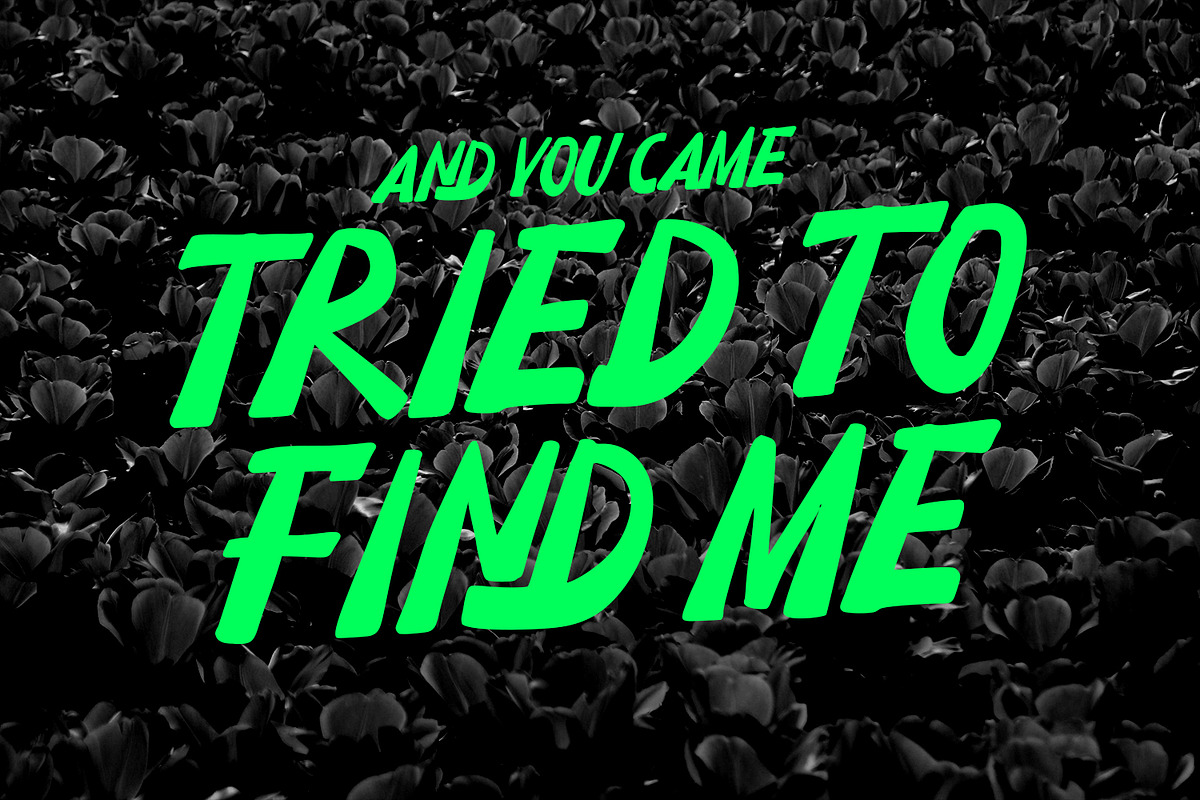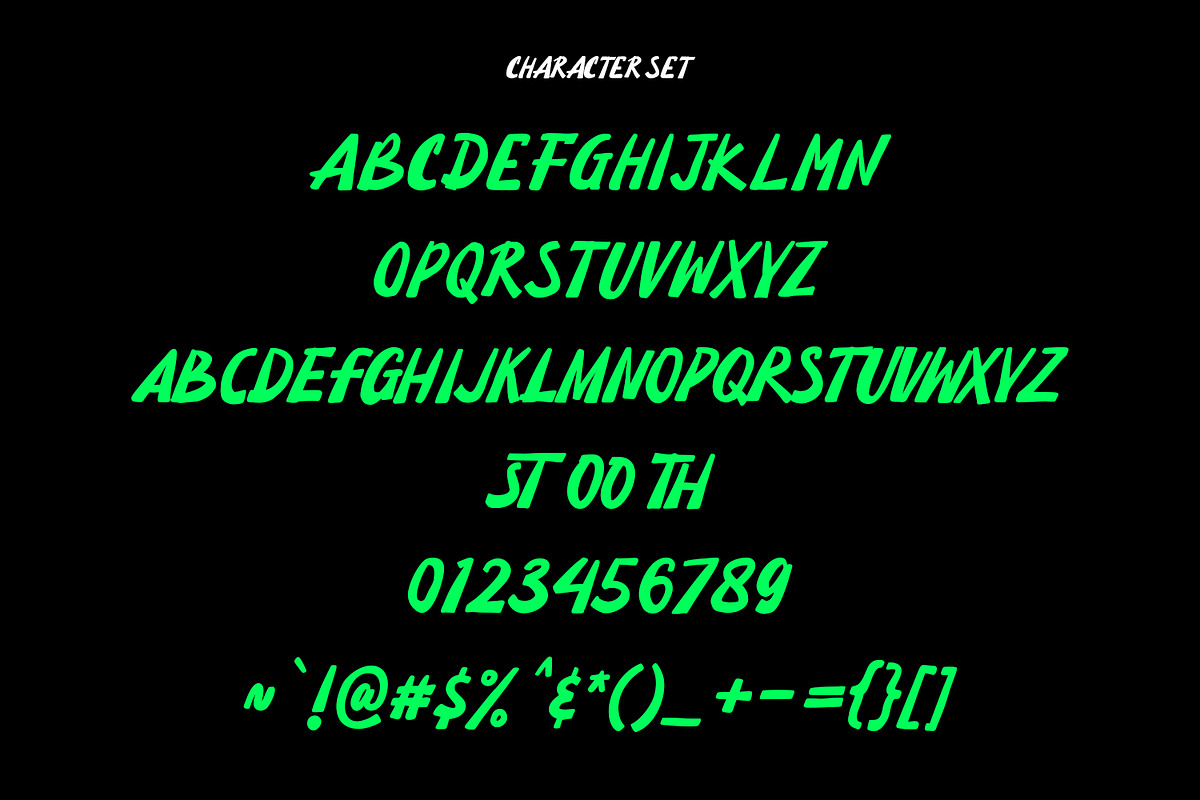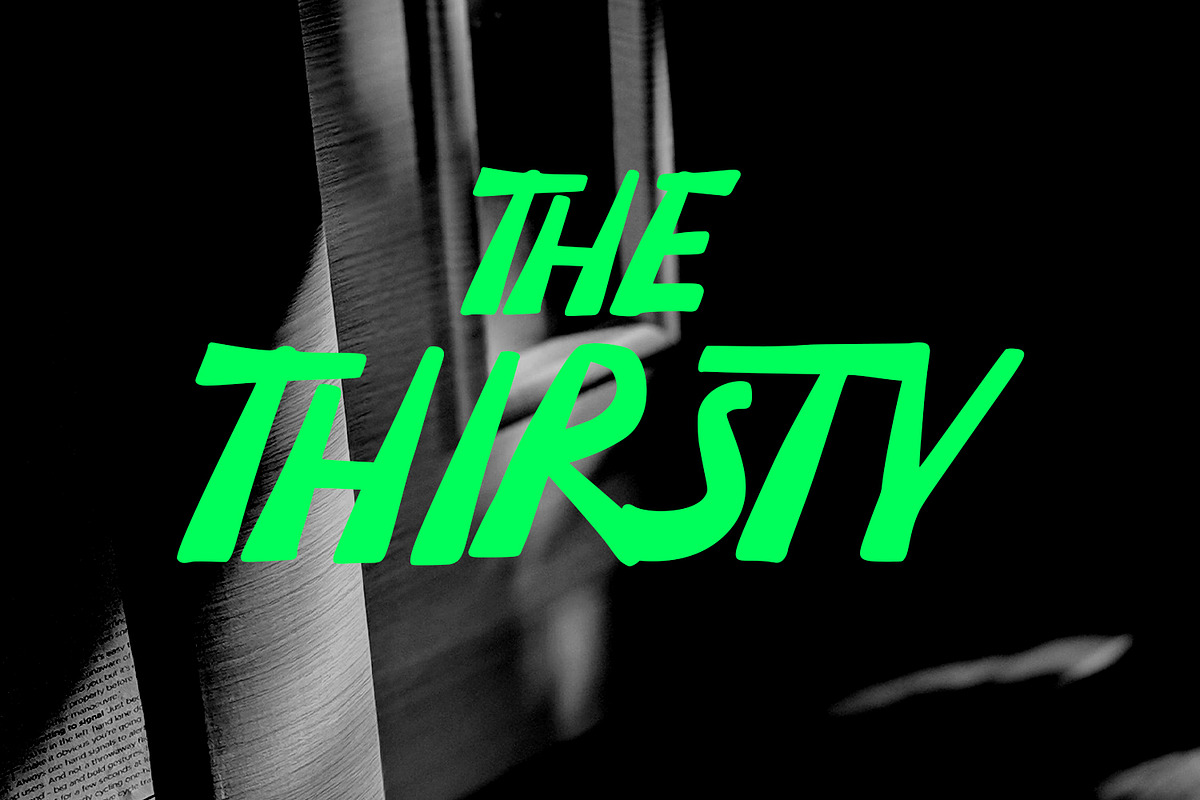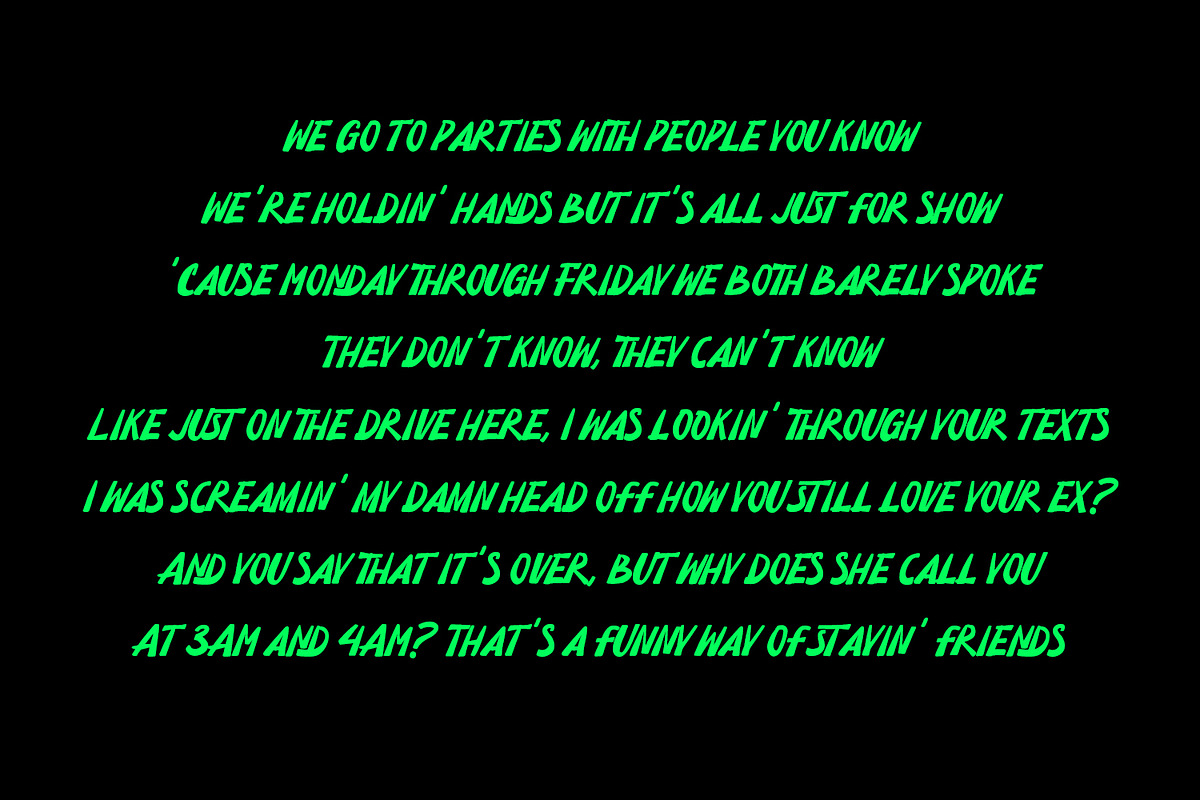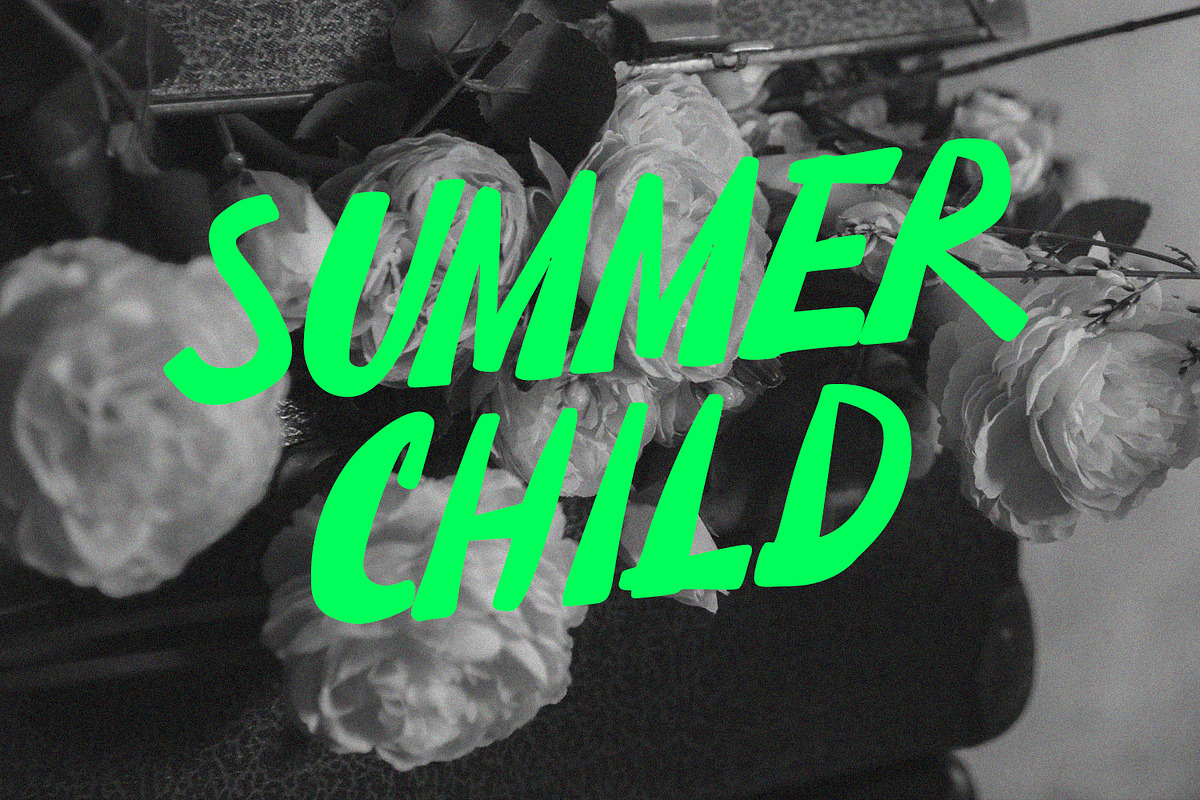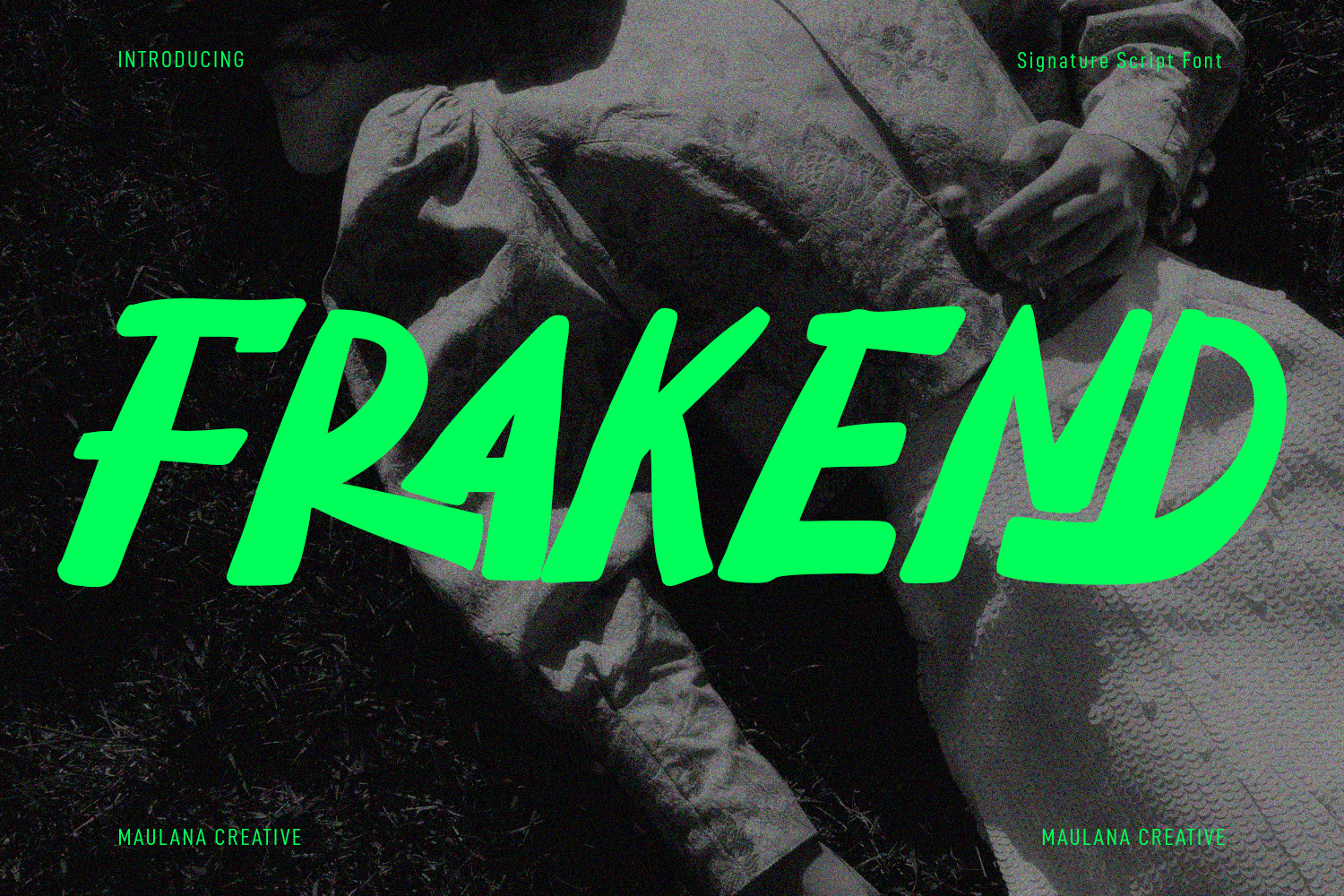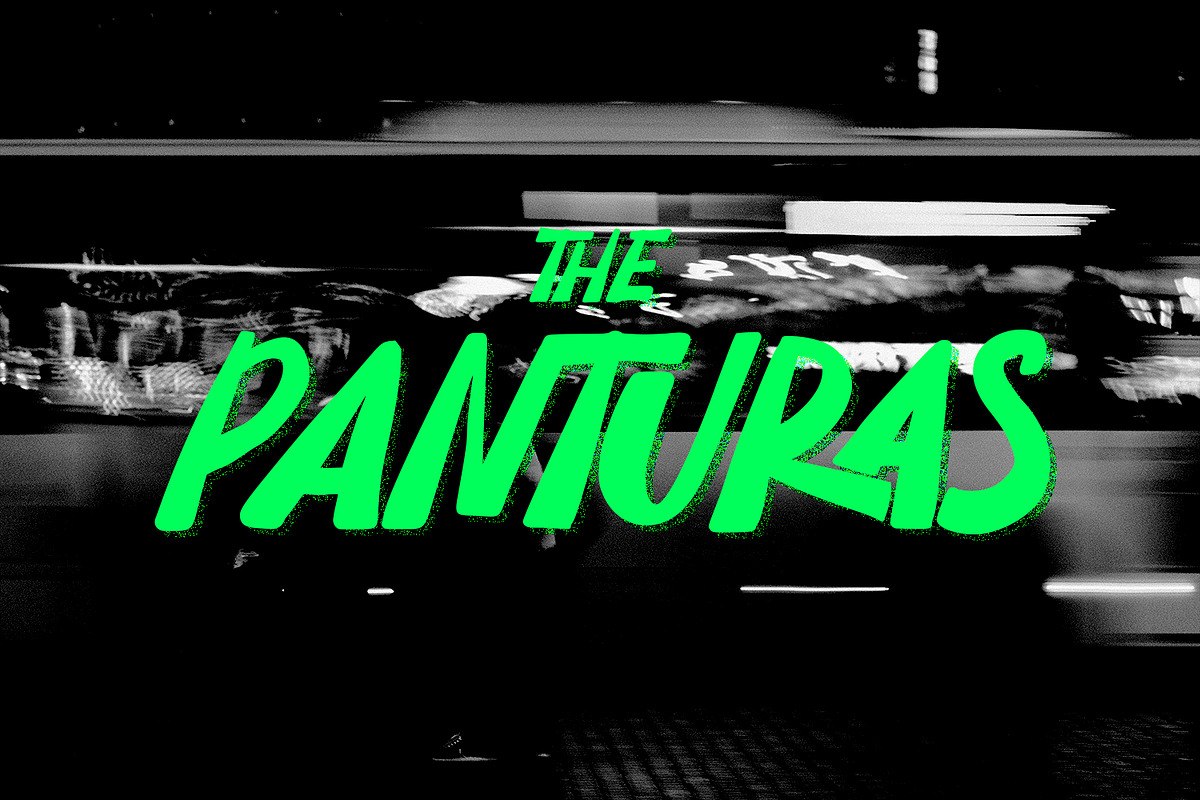
Frakend Handwritten Display Font
Frakend is a casual handwritten display font. With bold slanted stroke, fun character with a bit of ligatures and alternates. To give you an extra creative work. Frakend font support multilingual more than 100+ language. This font is good for logo design, Social media, Movie Titles, Books Titles, a short text even a long text letter and good for your secondary text font with sans or serif. Make a stunning work with Frakend font.